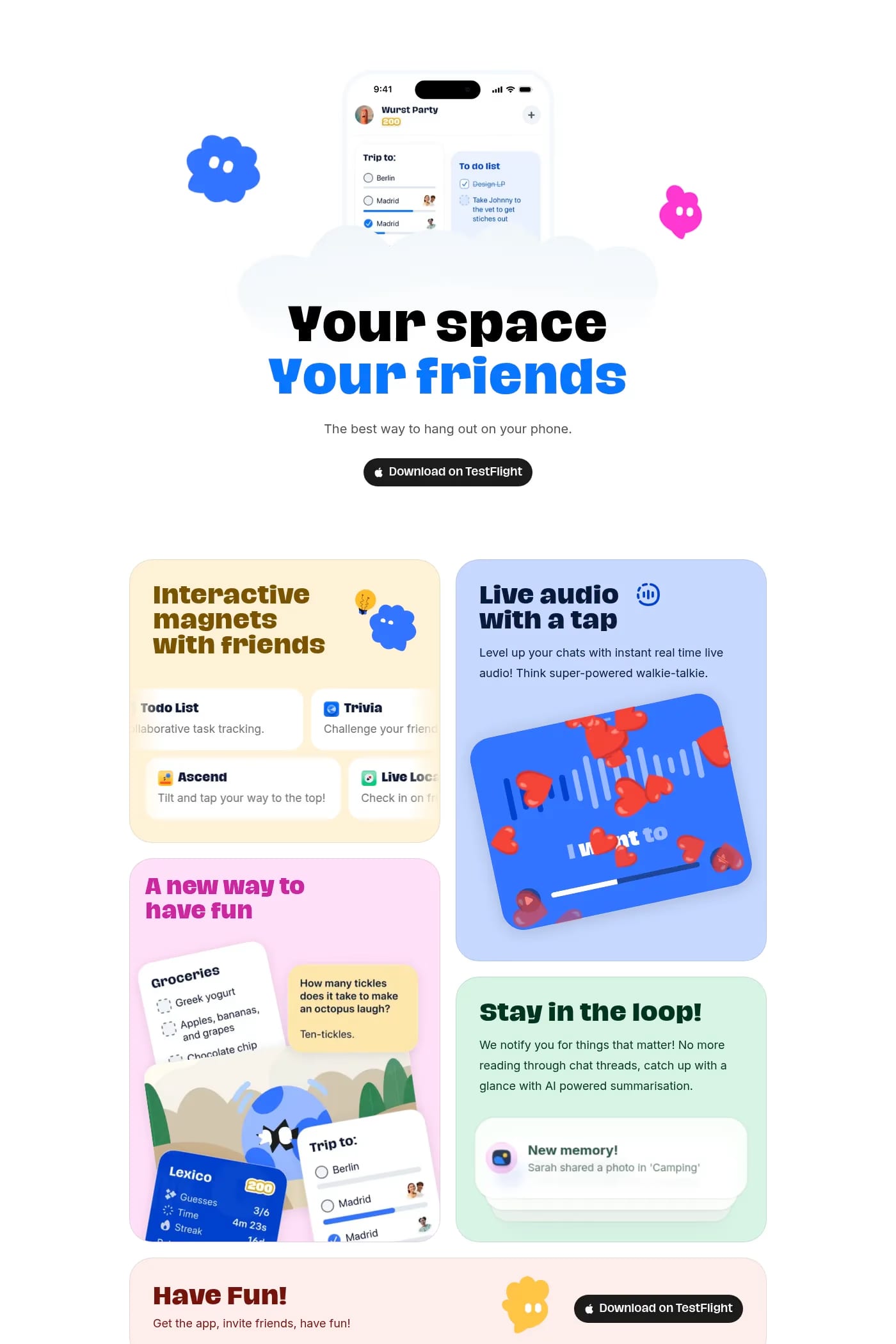
Hagrid is a serif typeface from Zetafonts.
Crypto-typography - the passion for unknown, weird and unusual character shapes - is a disease commonly affecting type designers. Cosimo Lorenzo Pancini has celebrated it in this typeface family, aptly named Hagrid after the half-blood giant with a passion for cryptozoology described by R. K. Rowling in her Harry Potter books.